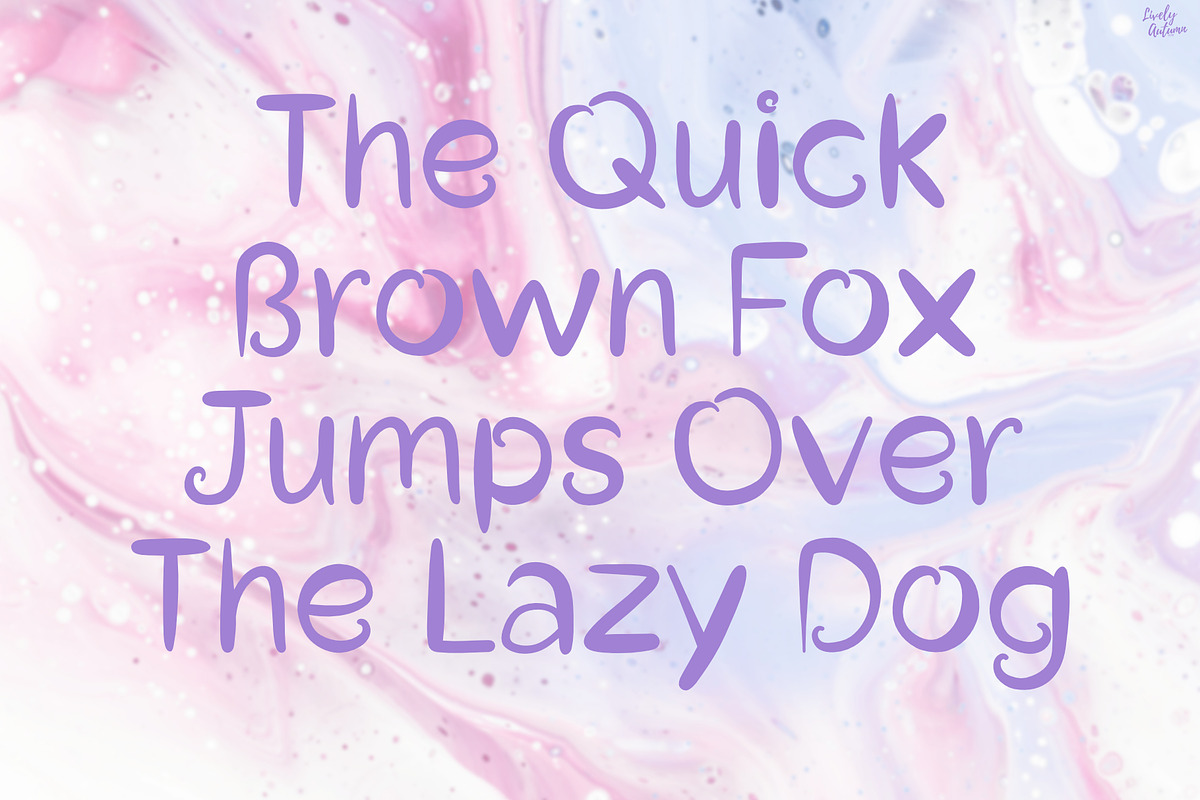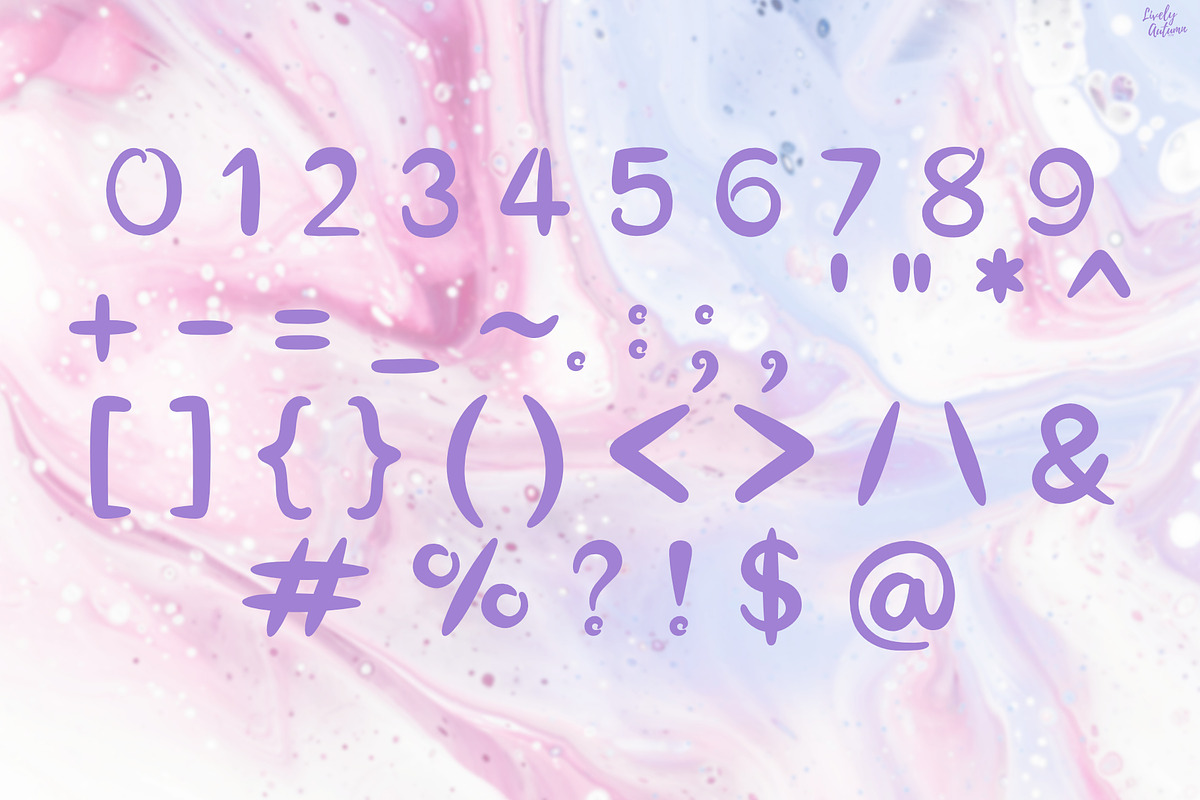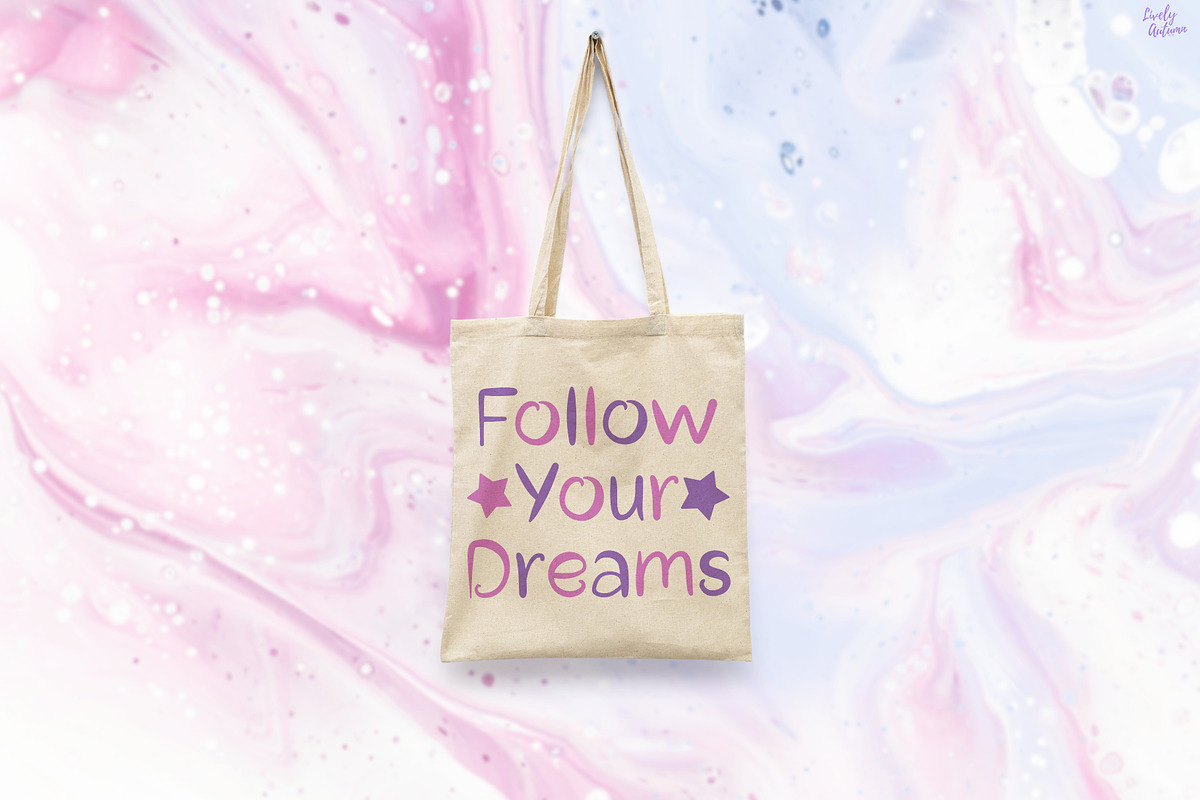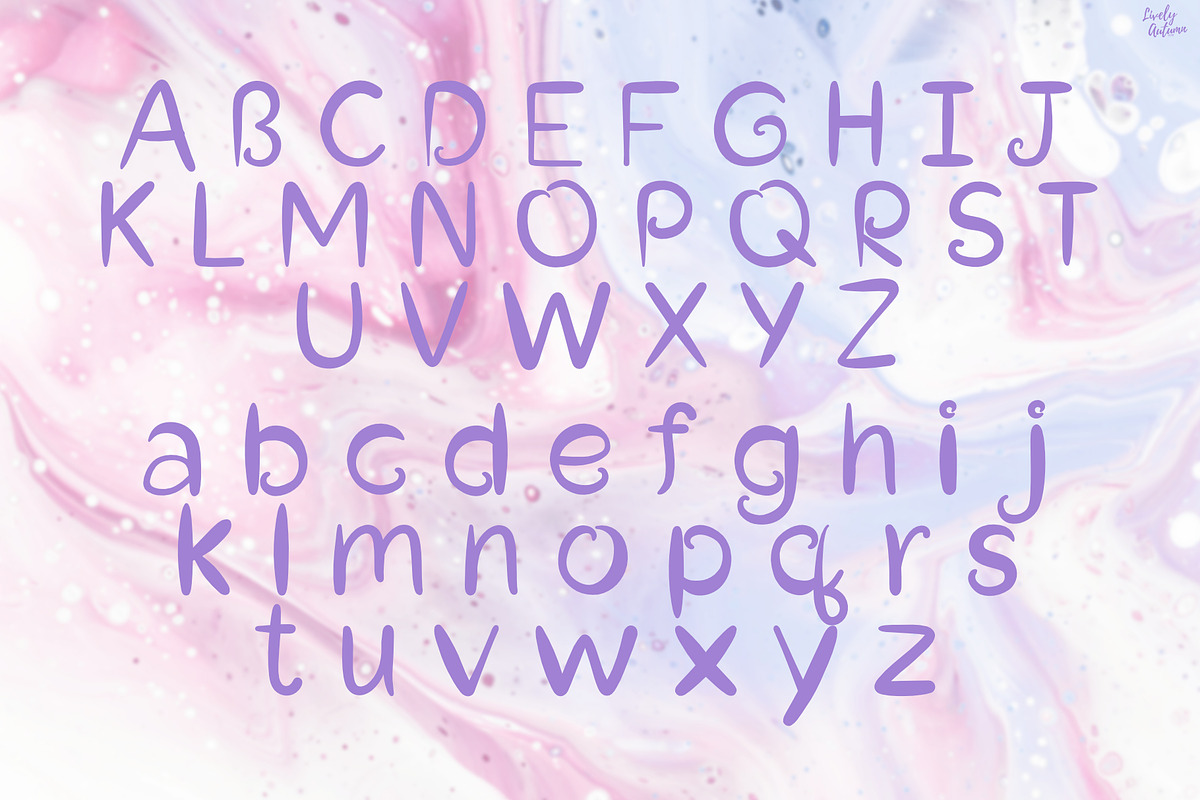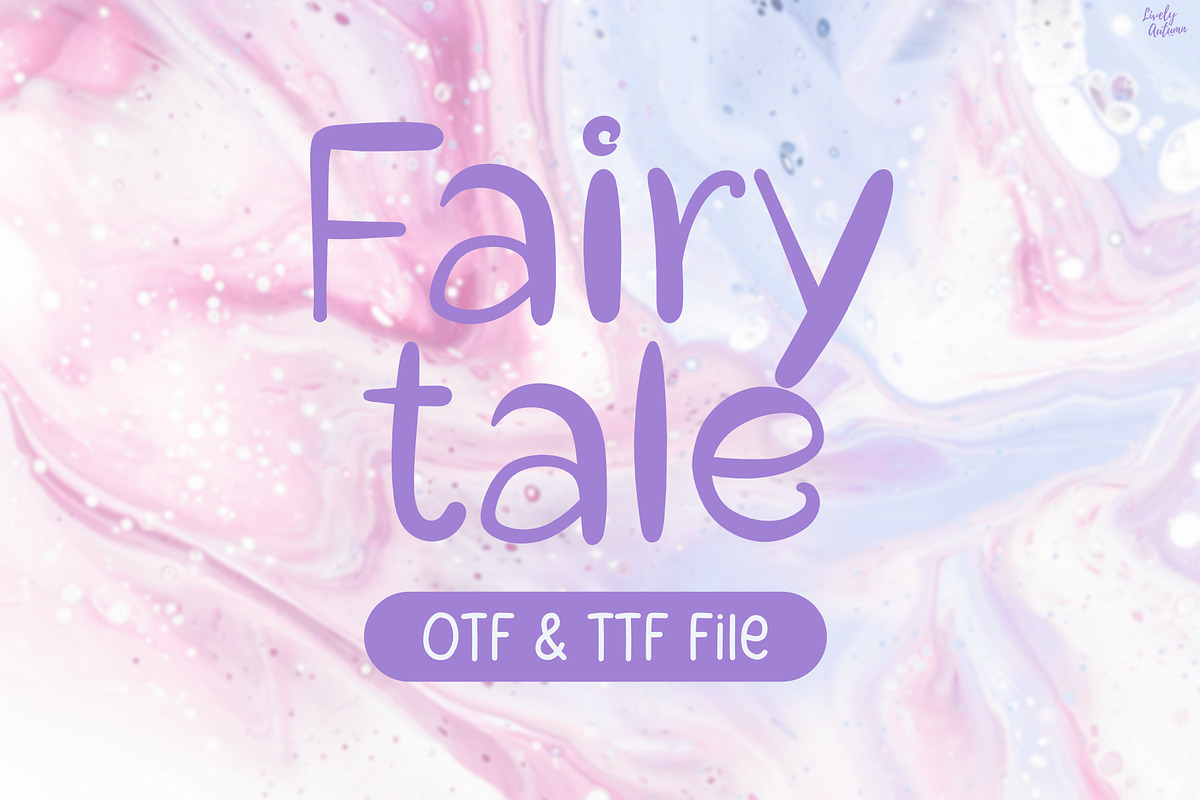
Fairy Tale | Fantasy handwritten
Fairy Tale is a fantasy, dream-like handwritten font. Perfect for your personal projects and various projects. From invitations to posters, social media graphics, journals, stickers and much more.
Font includes: uppercase, lowercase, numbers, and punctuation